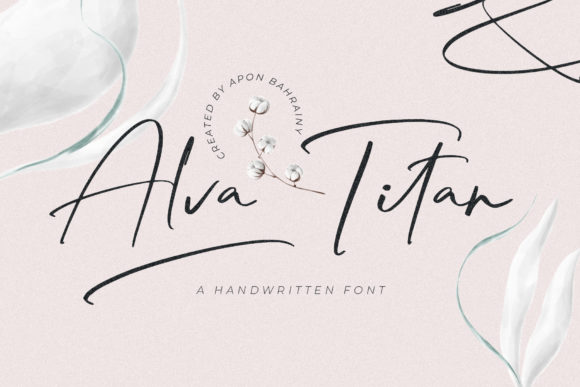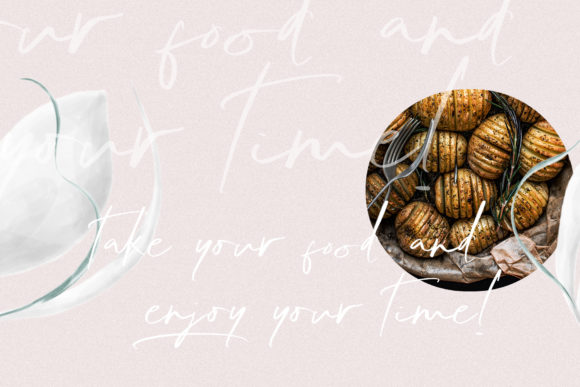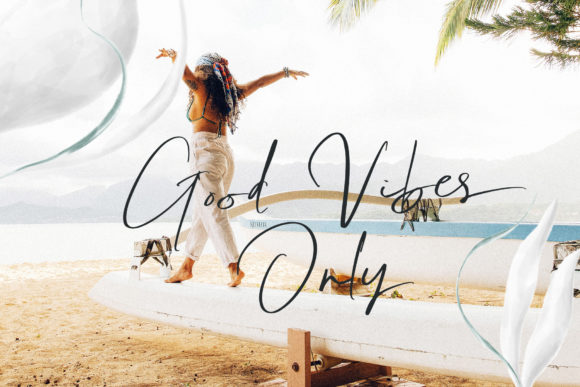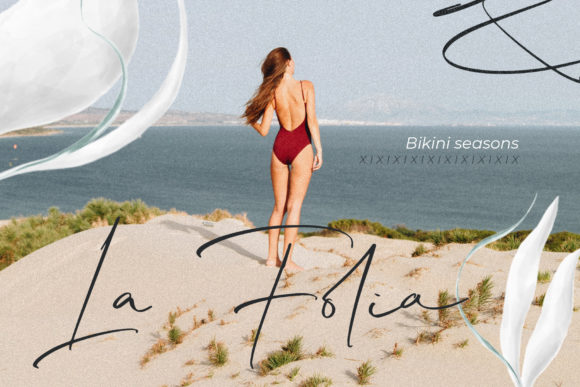
About Alva Titan Font
Alva Titan is a fresh handwritten font with ending swash and extra underline, ready to use for any design needs. It is suitable for daily quotes, custom logos, titles, posters, headlines, social media posts, invitations, packaging, and other design projects.